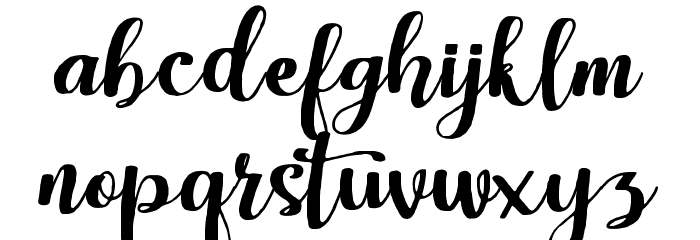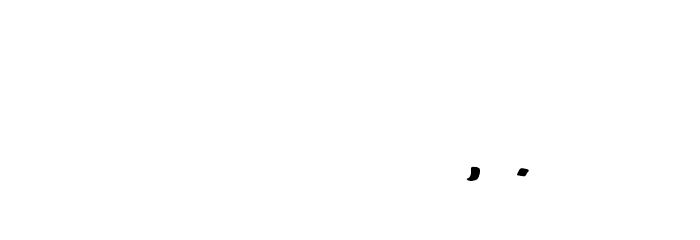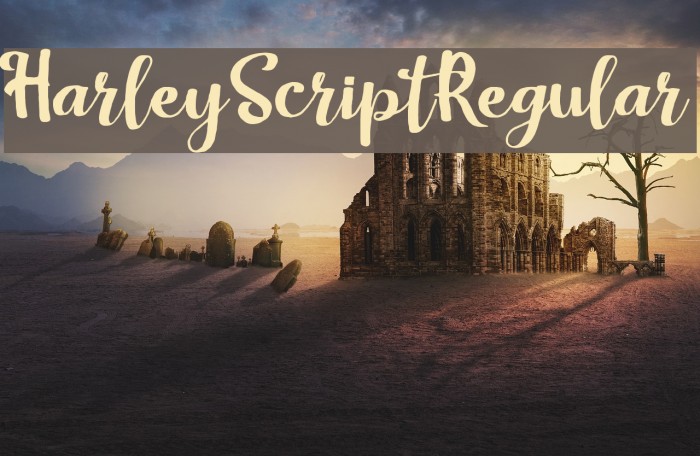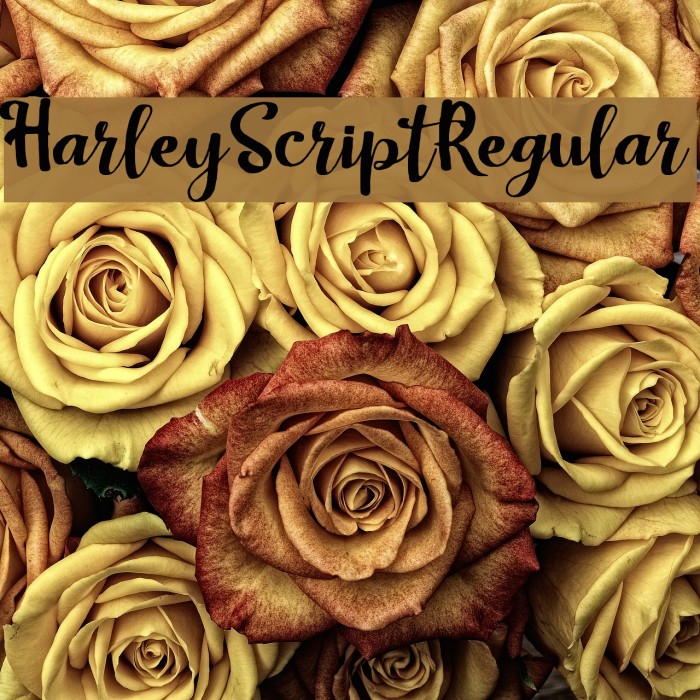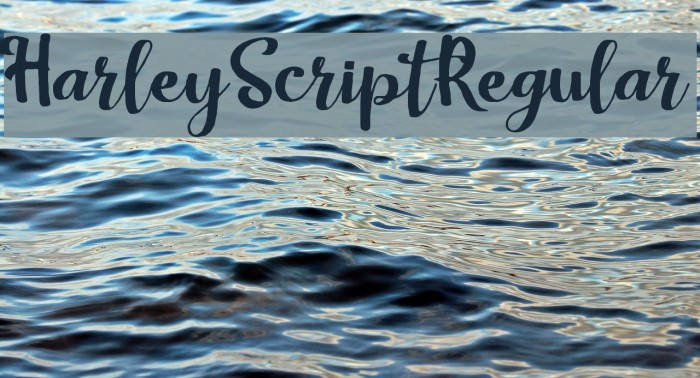
HarleyScriptRegular Font
This font features a bold and expressive script style with a handwritten appearance. The characters are connected, showcasing fluid strokes and a dynamic flow. The uppercase letters are slightly more structured, while the lowercase letters exhibit a more casual and freeform style. The overall design is playful and energetic, making it suitable for creative and informal applications. The font maintains a consistent weight throughout, with moderate contrast in stroke thickness, adding to its legibility and charm.
A bold, expressive script font with a handwritten, dynamic style.
- Proposed Projects: Ideal for greeting cards, invitations, branding, and creative projects that require a personal touch.
- Use Case: Logos, Headlines, Invitations